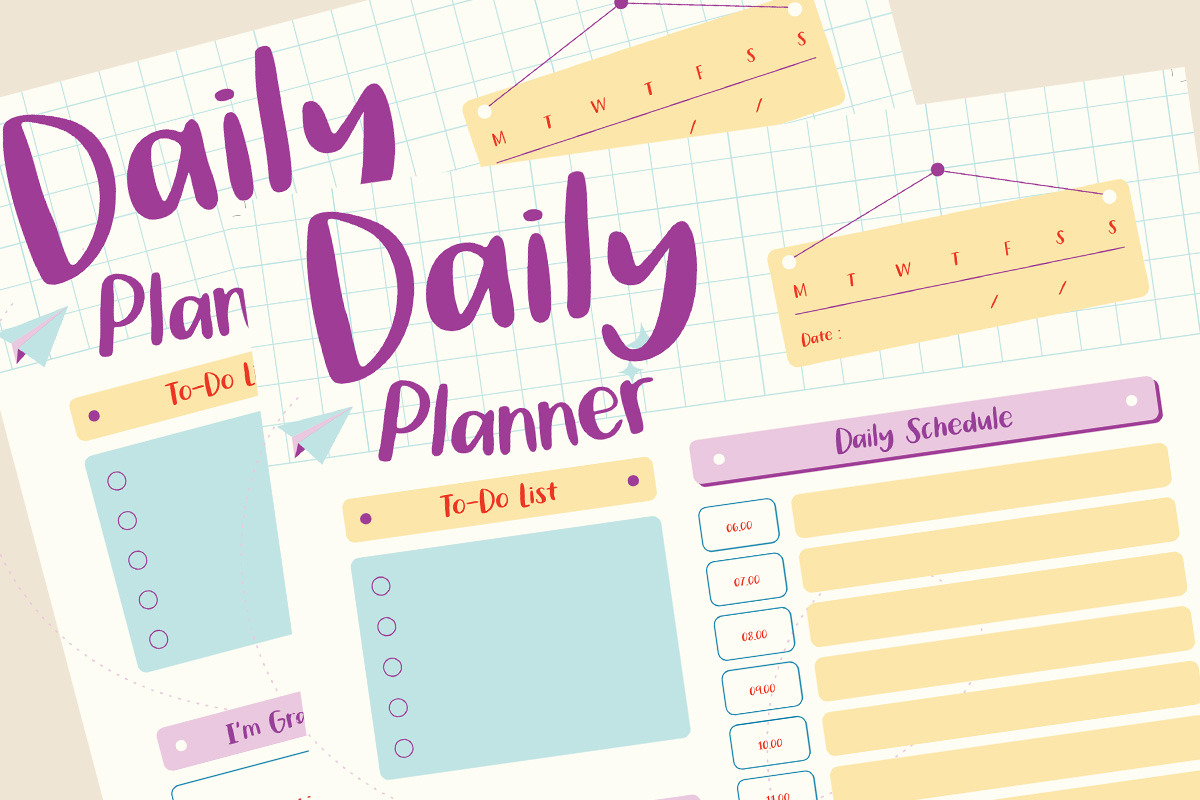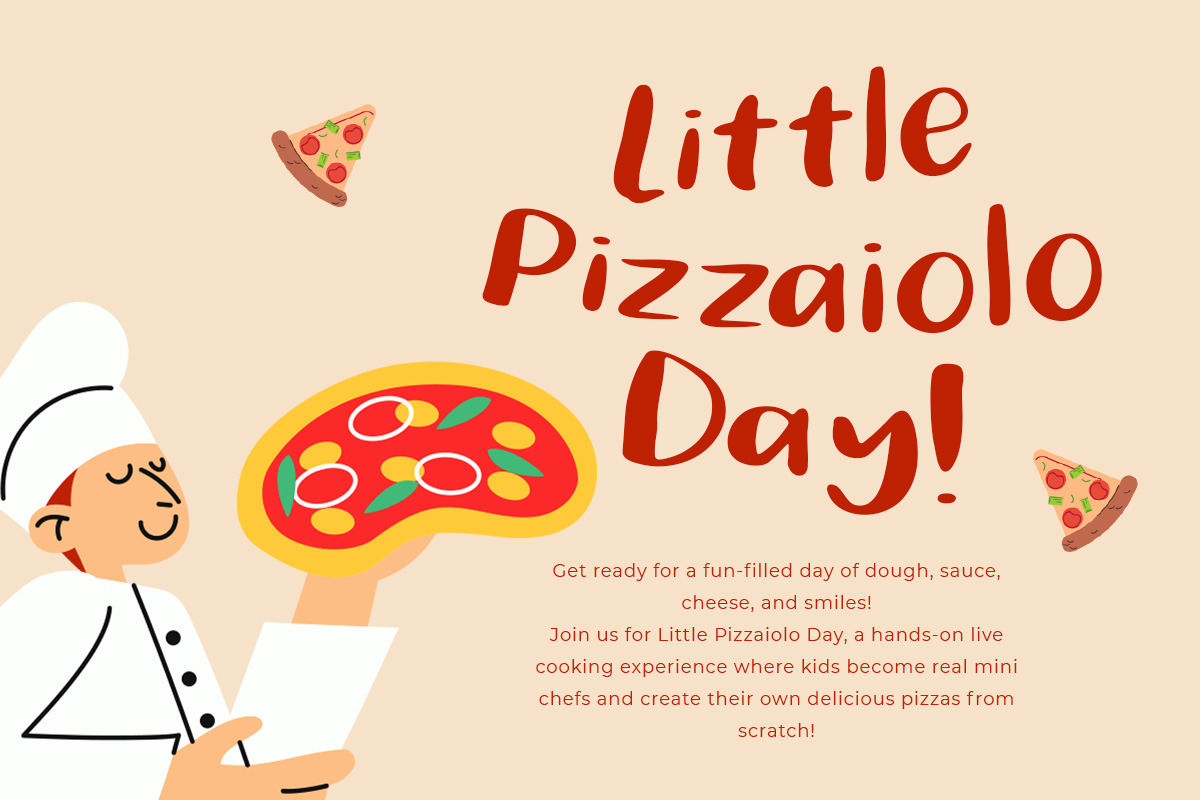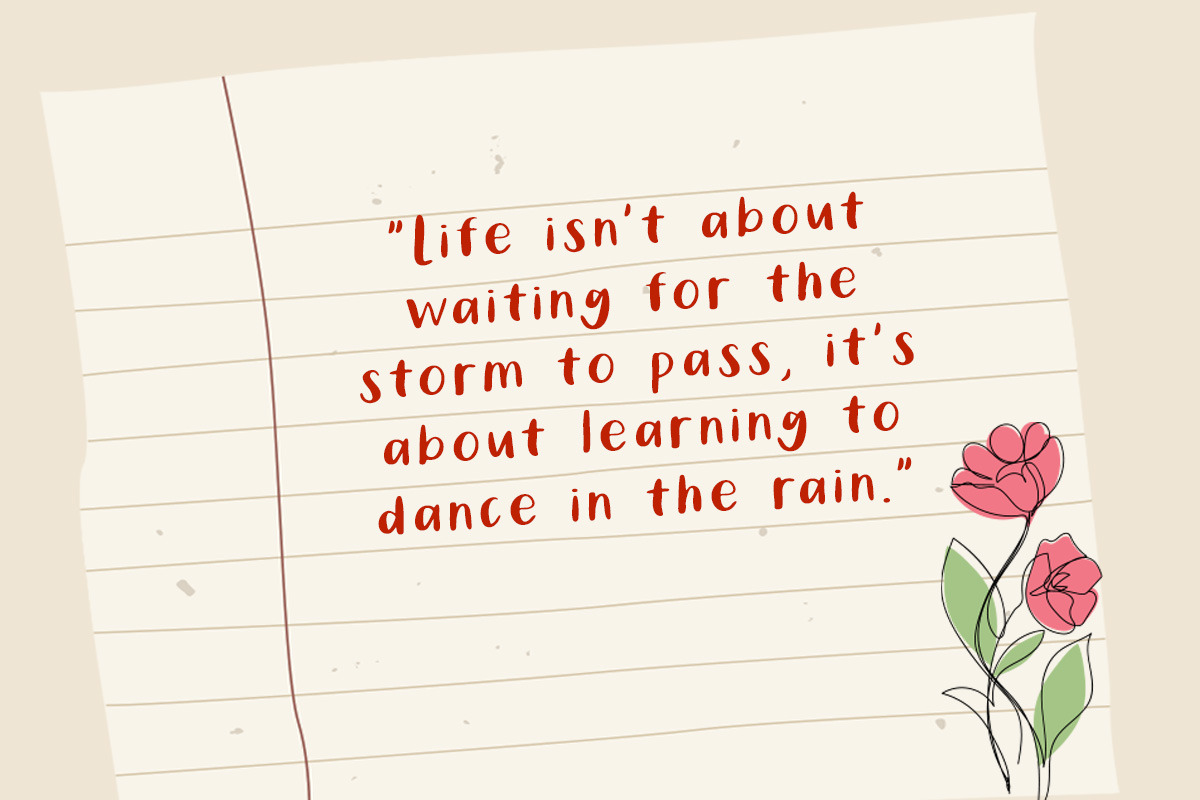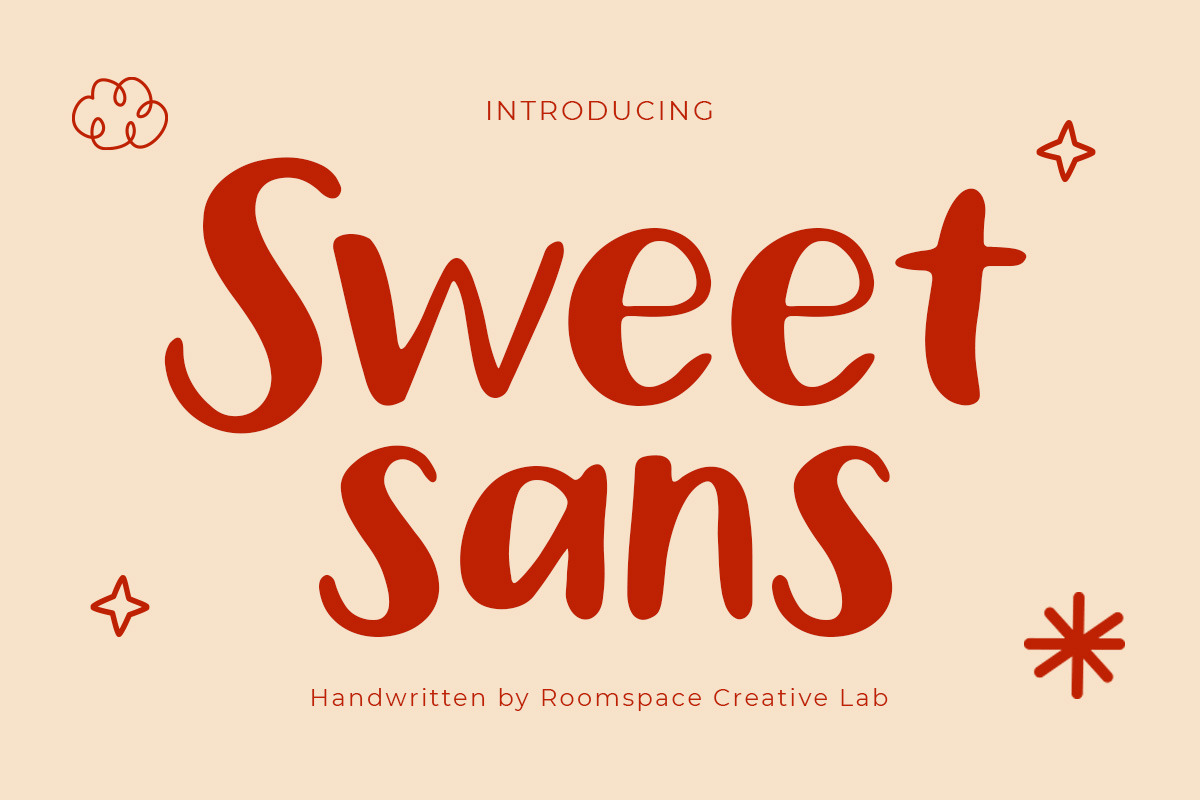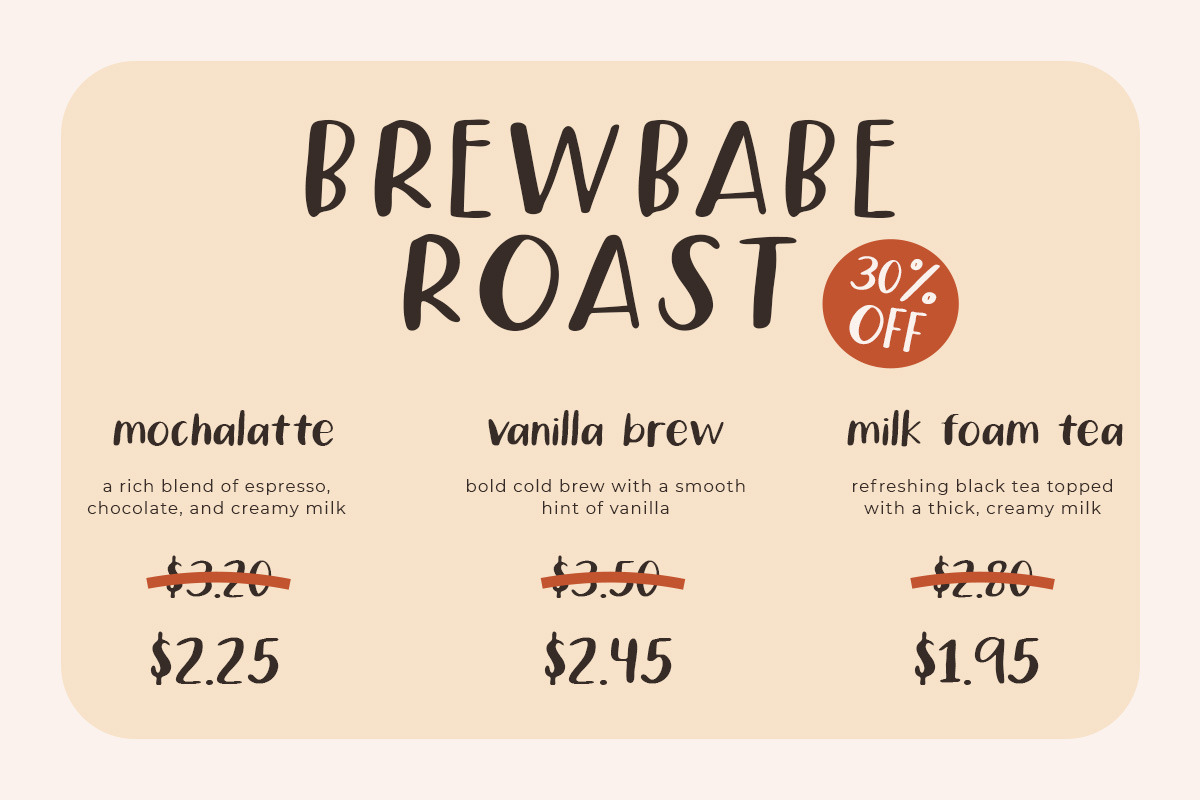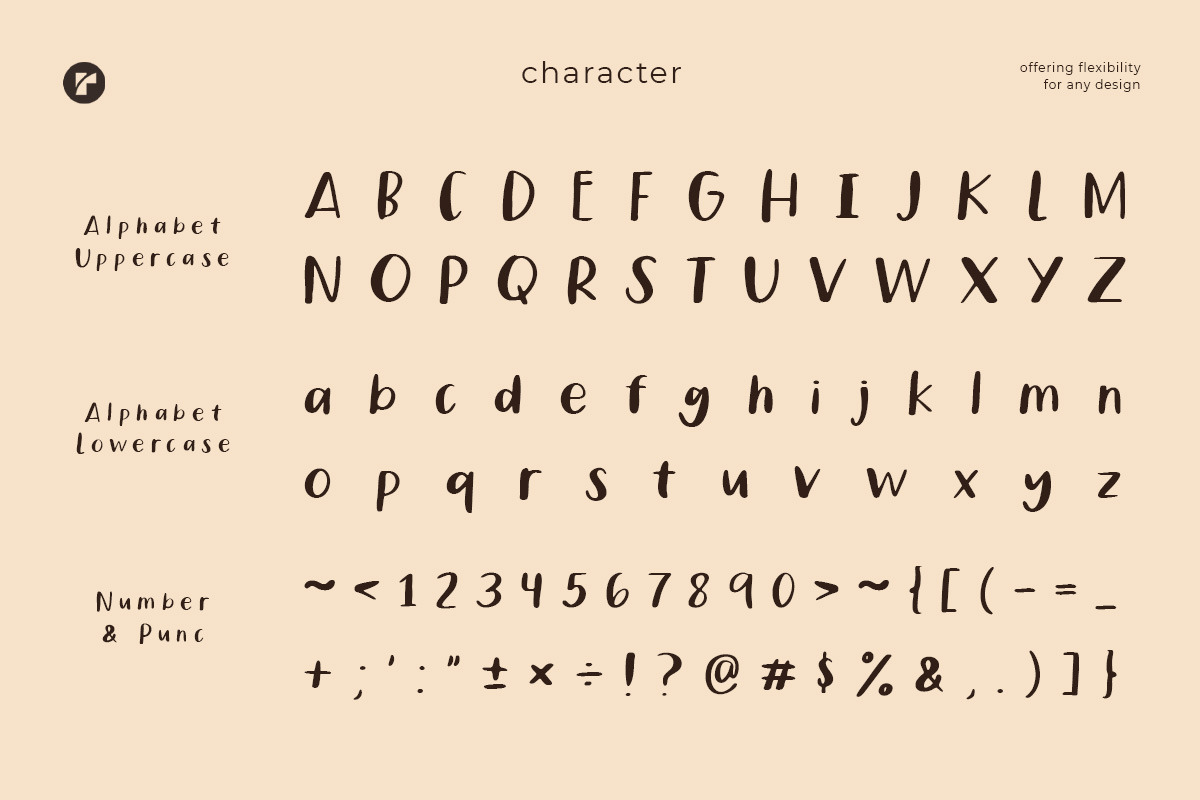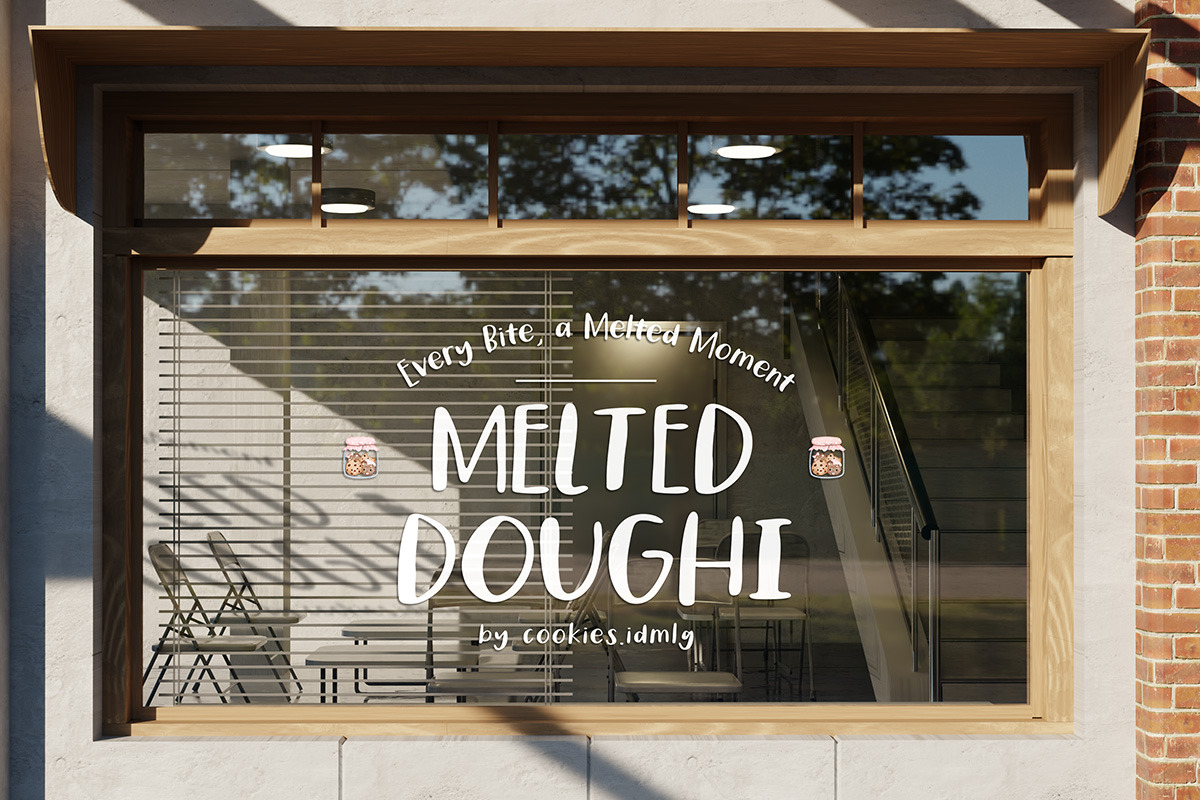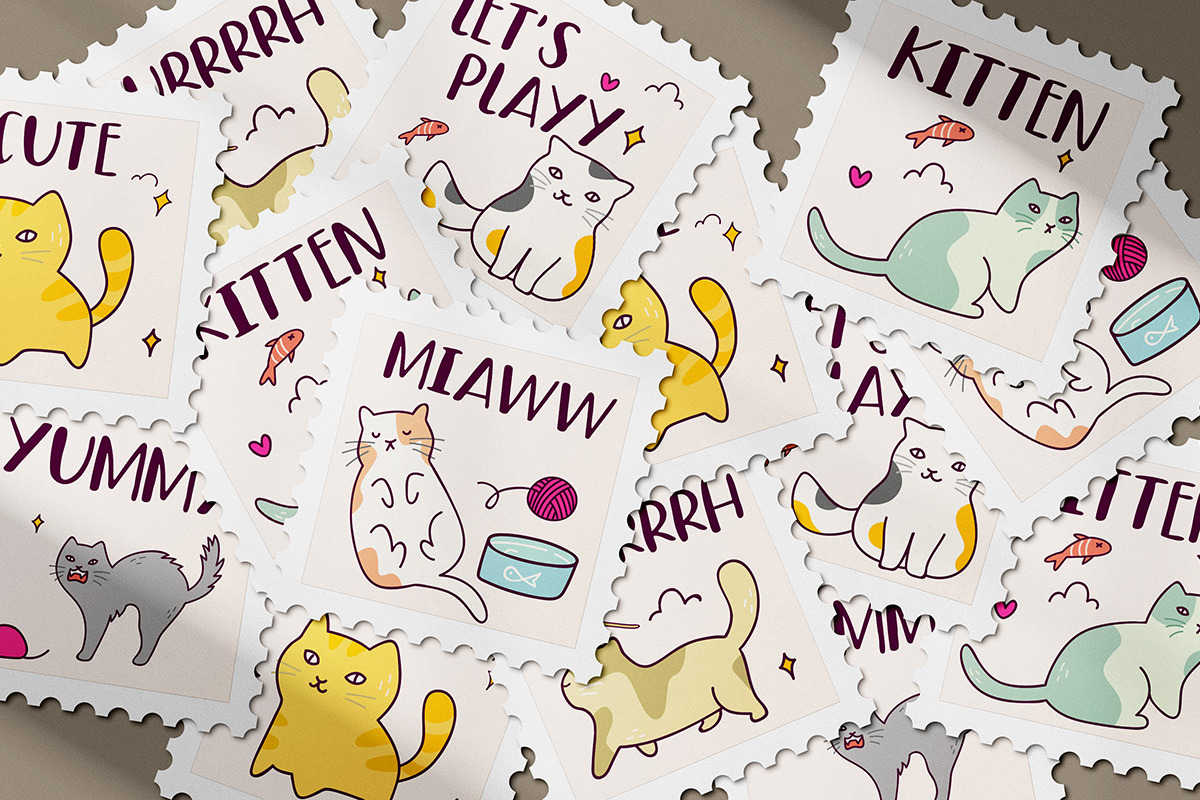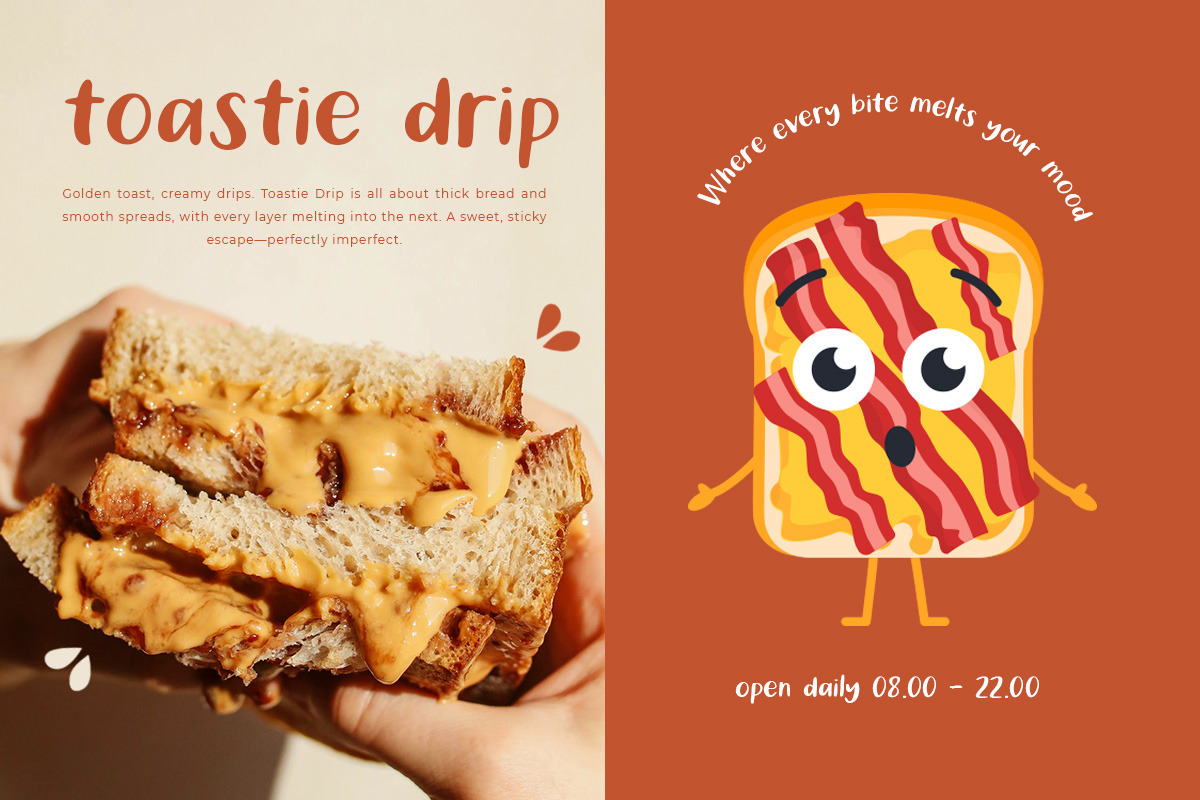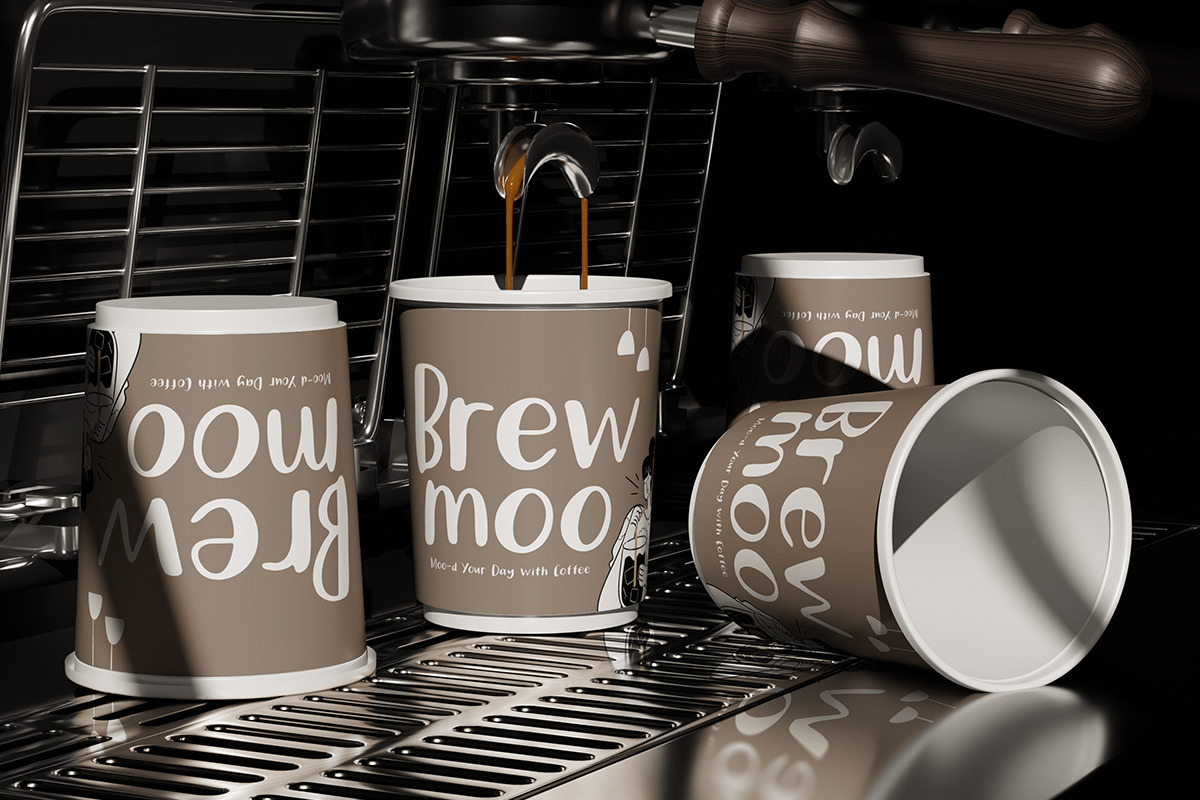
Sweet Sans - Quirky Branding Font
Sweet Sans, a bold and playful handwritten font designed to bring joy to your designs! With its rounded curves, fun strokes, and cheerful energy, Sweet Sans is perfect for branding, social media posts, kids’ projects, quirky packaging, and creative crafts.
Whether you’re creating invitations, logos, or bold headlines, Sweet Sans makes your message pop with a touch of happiness. It’s easy to read, eye-catching, and full of personality. Perfect for designers, small businesses, and creators who want a playful touch in their work.